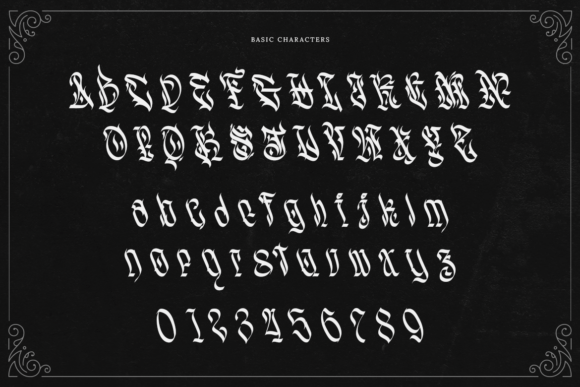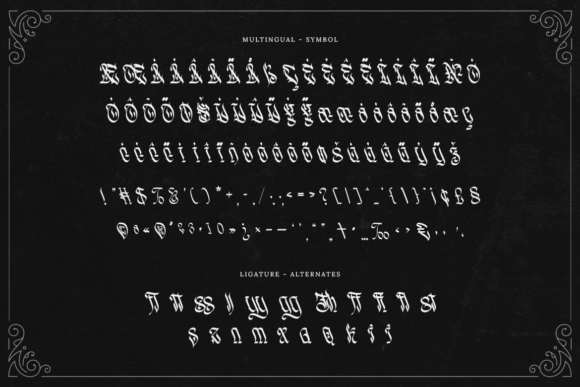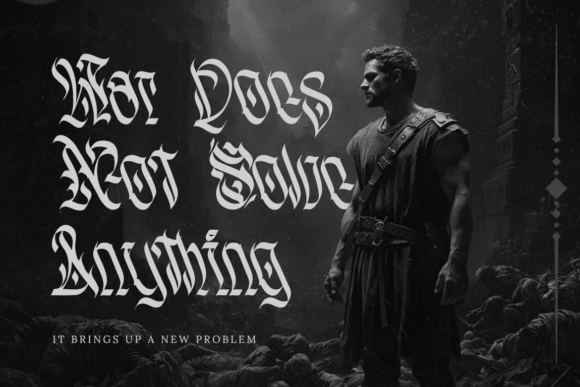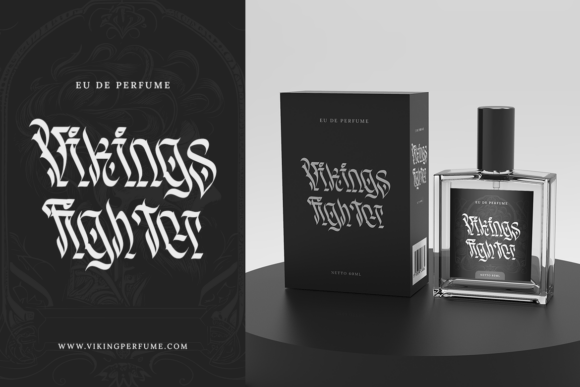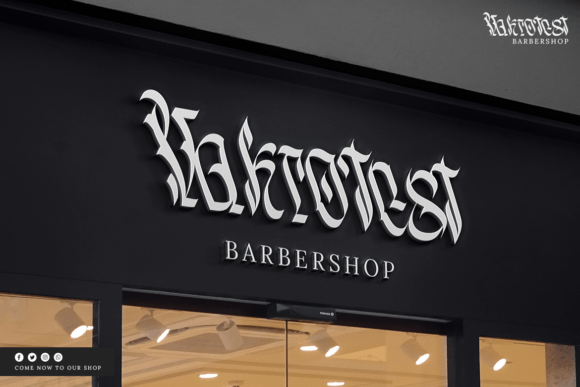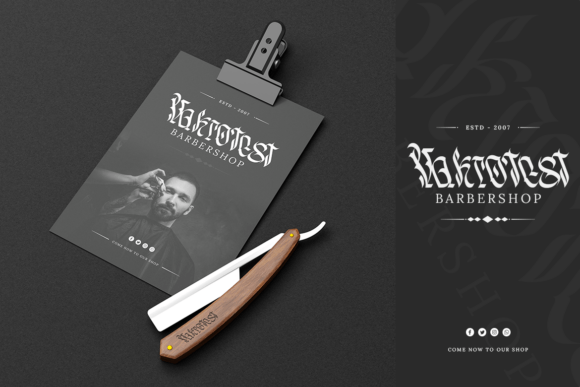
Introduction to Madnest Font
Have you ever stared at a blank canvas, eager to bring your creative project to life, but struggling to find the perfect visual spark? That’s where the Madnest Font comes in – a game-changing design resource that injects an unparalleled level of energy and sophistication into your work. Its unique blackletter style is a masterful blend of tradition and innovation, making it the perfect fit for designers seeking to add a touch of history and edge to their designs.
Key Features of Madnest Font
- High-quality design resource with a unique, creative style perfect for various projects.
- Features a transparent background, allowing for easy integration into designs with complex backgrounds.
- Designed to be highly versatile, suitable for use in a wide range of creative projects, from graphics to web design.
- Unique characteristics include bold, playful lines and a mix of modern and vintage elements.
- Perfect for designers and artists looking for a distinctive, high-quality design resource to elevate their creative project.
Honest Review: Madnest Font
One of the standout features of the Madnest Font is its high quality design, with clean lines and a unique aesthetic that sets it apart from more generic fonts. I particularly appreciated the transparent background option, which made it easy to layer and customize the text in my design.
Here are a few things that work well with the Madnest Font:
- ✨ Unique and stylish design that adds a touch of sophistication to any project
- ✨ High quality and crisp typography that’s perfect for print and digital designs
- ✨ Transparent background option makes it easy to layer and customize text
One limitation I noticed was that the font may not be suitable for very small text sizes, as the details can get lost. Additionally, the font may not be as versatile as some other fonts, but for a free download, it’s a great option.
Tips for Getting the Most Out of Madnest Font
Use the Madnest Font on a transparent background to add a unique touch to your designs. Experiment with different font sizes and colors to create a visually appealing effect.
The Madnest Font is perfect for a variety of creative projects, including logos, branding materials, and social media graphics. Its high-quality design and transparent background make it a versatile design resource.